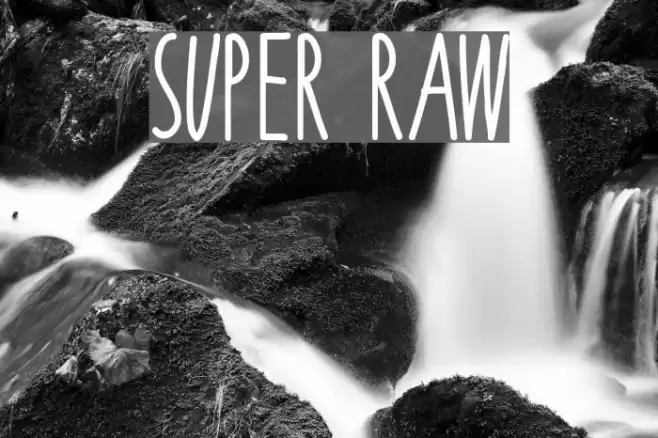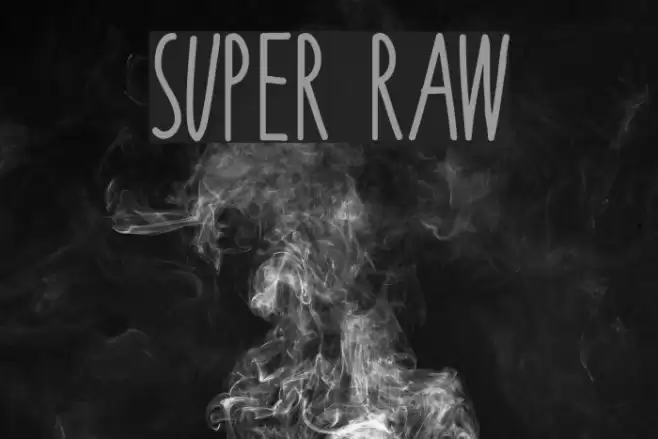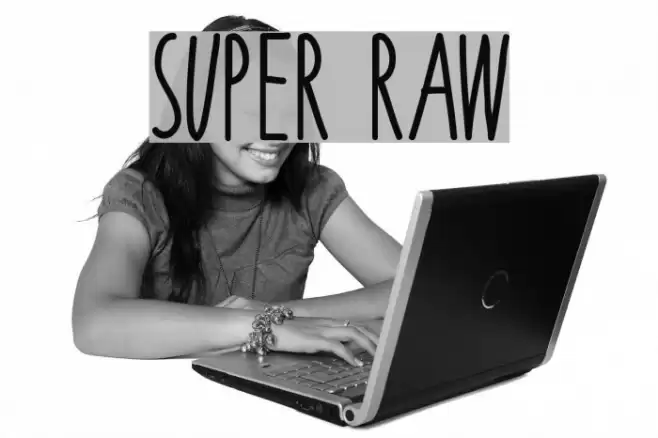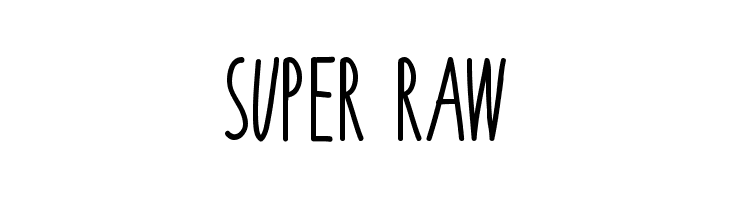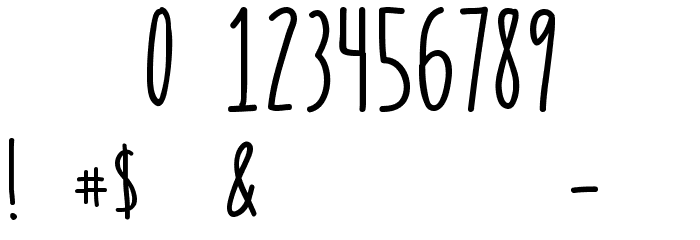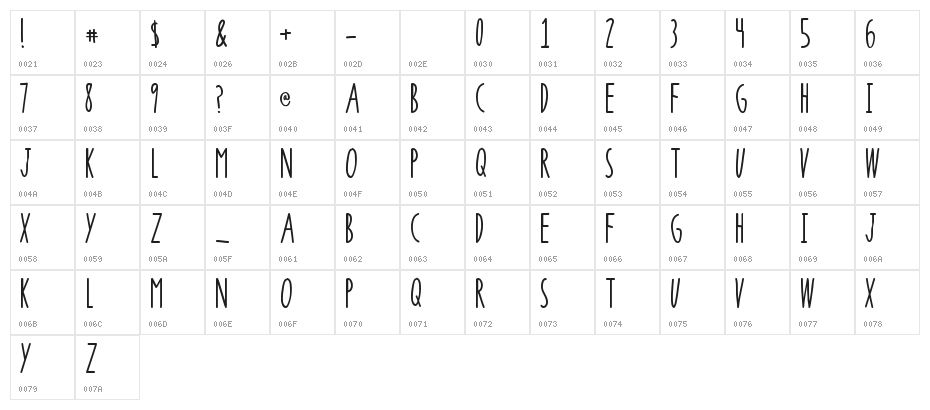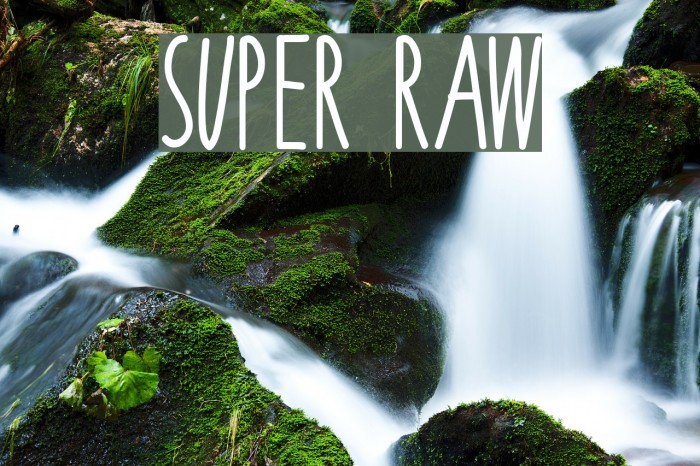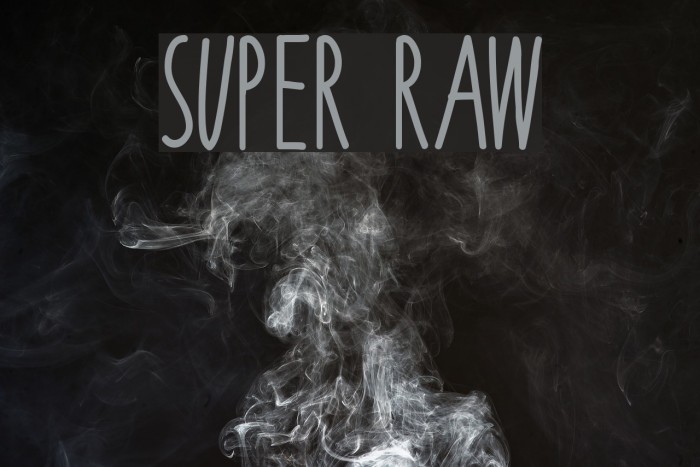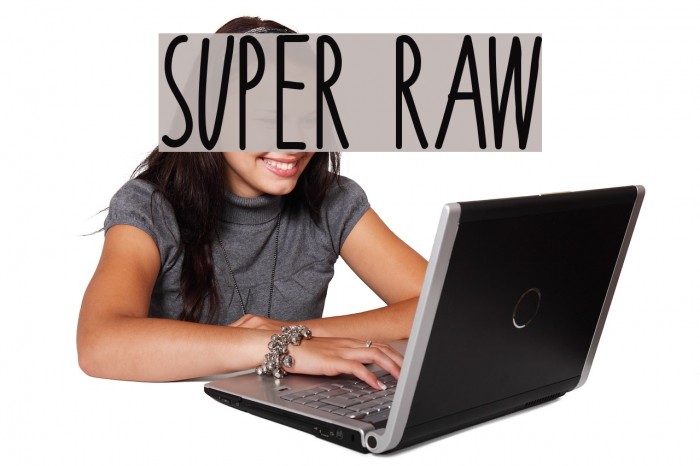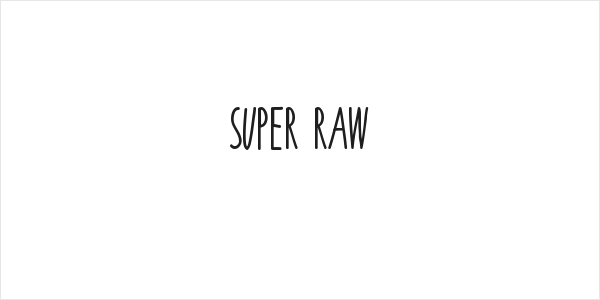
Super Raw Font
Super Raw Description
This font features a playful and informal handwritten style, characterized by tall, narrow letters with a consistent stroke width. The uppercase and lowercase letters maintain a uniform height, giving it a cohesive look. The numerals are slightly taller than the lowercase letters, ensuring readability. Special characters are designed to match the overall aesthetic, with a quirky and approachable feel. The font's simplicity and charm make it suitable for casual and creative projects, adding a personal touch to any design.
A playful, handwritten font with tall, narrow letters and consistent stroke width from Handwritten fonts.
- Proposed Projects: Ideal for greeting cards, children's books, casual invitations, and social media graphics.
- Overall Style: Casual
- Use Case: Headlines, Informal text, Creative projects